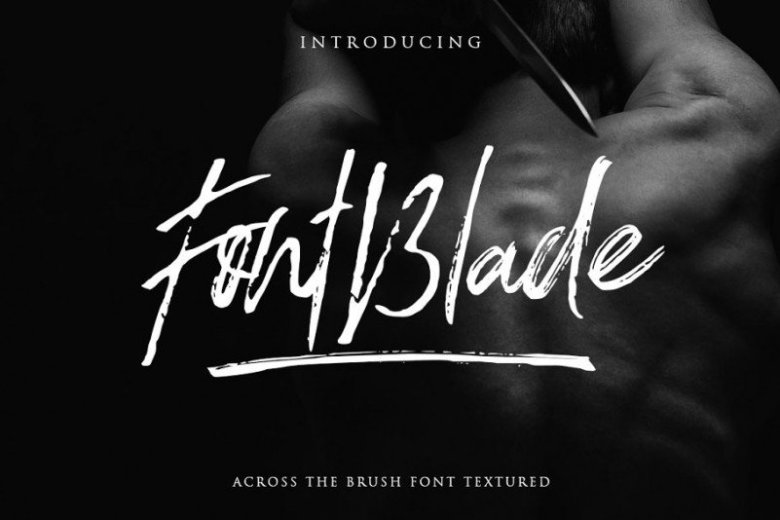
FontBlade Brush Font
Hello Font Lovers! Introducing a new across the brush font textured “FontBlade Font“, a stylish script font that is simply and classy font. It’s perfect choice for fashion, label, and more design projects. It is design and shared by Haksen. FontBlade Brush Font A rustic, dapper handwritten font with a personal charm. With quick dry strokes and a brushstyle, it is perfect for branding projects, homeware designs, product packaging – or simply as a stylish text overlay to any background image.